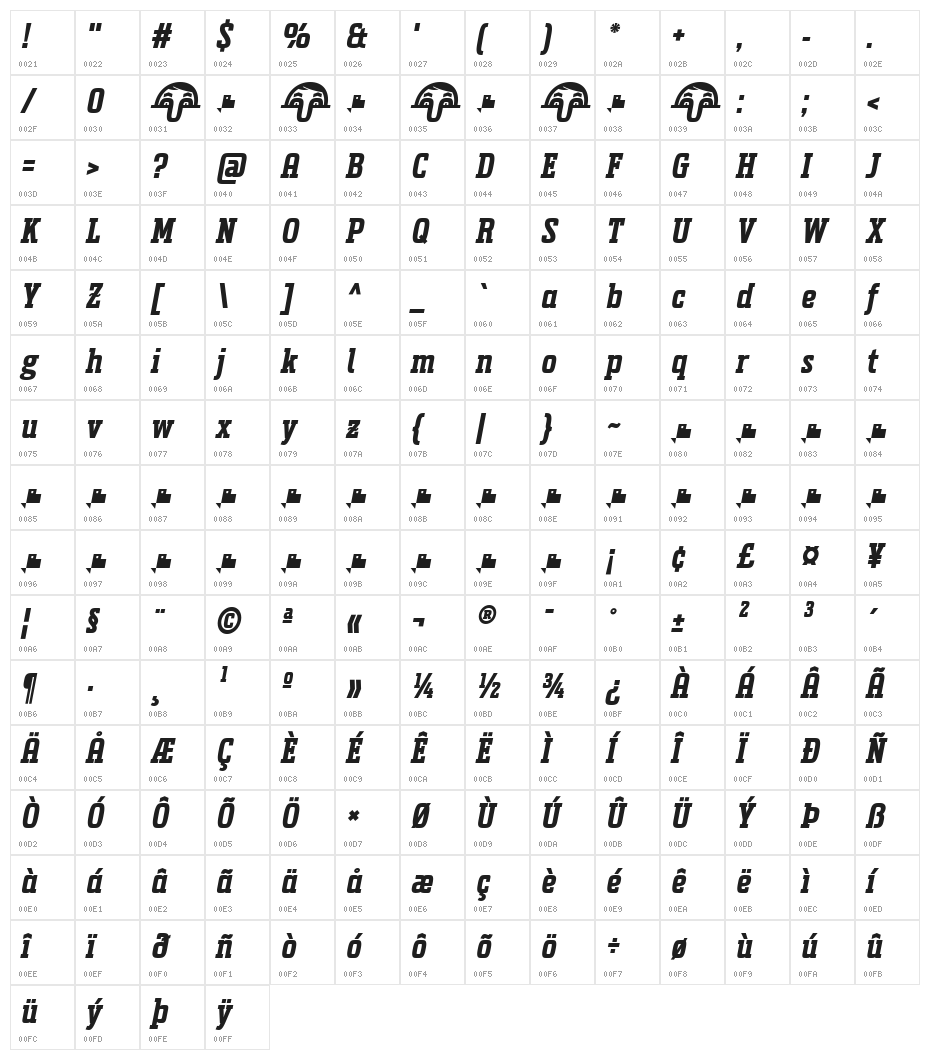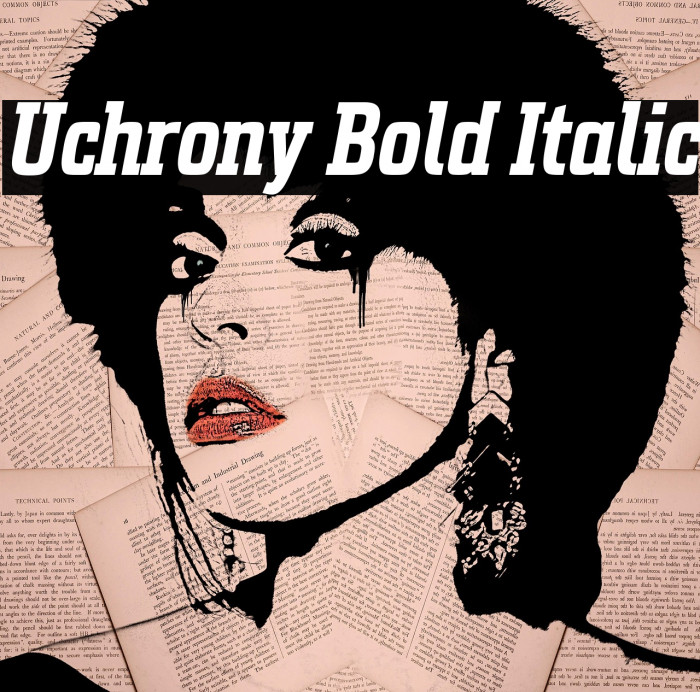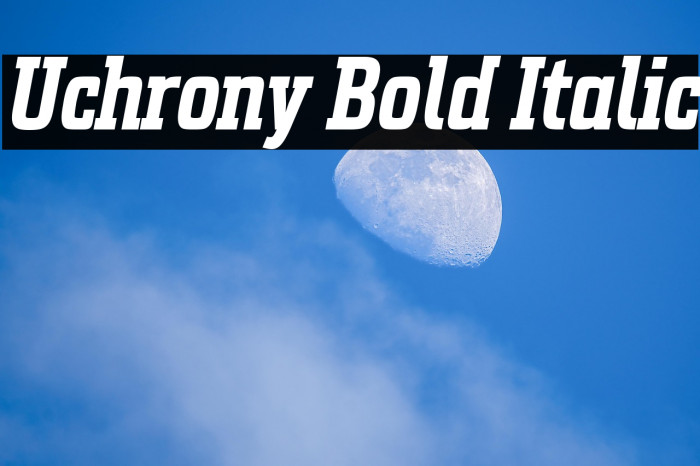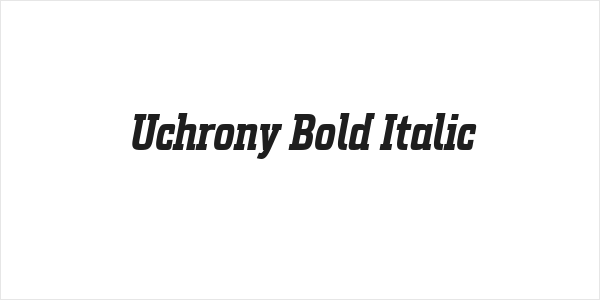
Uchrony Bold Italic Font
Uchrony Bold Italic Description
This font exhibits a bold and italicized style, characterized by strong, confident strokes and a forward-leaning posture. The uppercase letters are robust and commanding, while the lowercase letters maintain a consistent weight, offering a cohesive look. The numerals are distinct and align well with the overall bold aesthetic. Special characters are crafted with the same attention to detail, ensuring they integrate seamlessly with the alphabet. The font's design is modern yet retains a hint of classic appeal, making it versatile for various applications.
Proposed ProjectsIdeal for branding, headlines, posters, and any project requiring a bold statement.